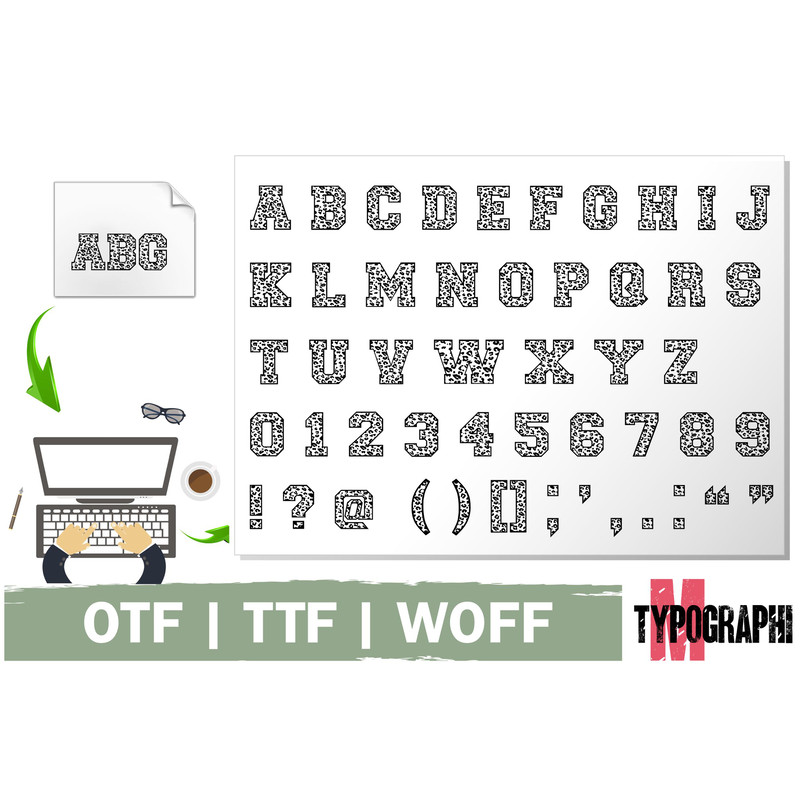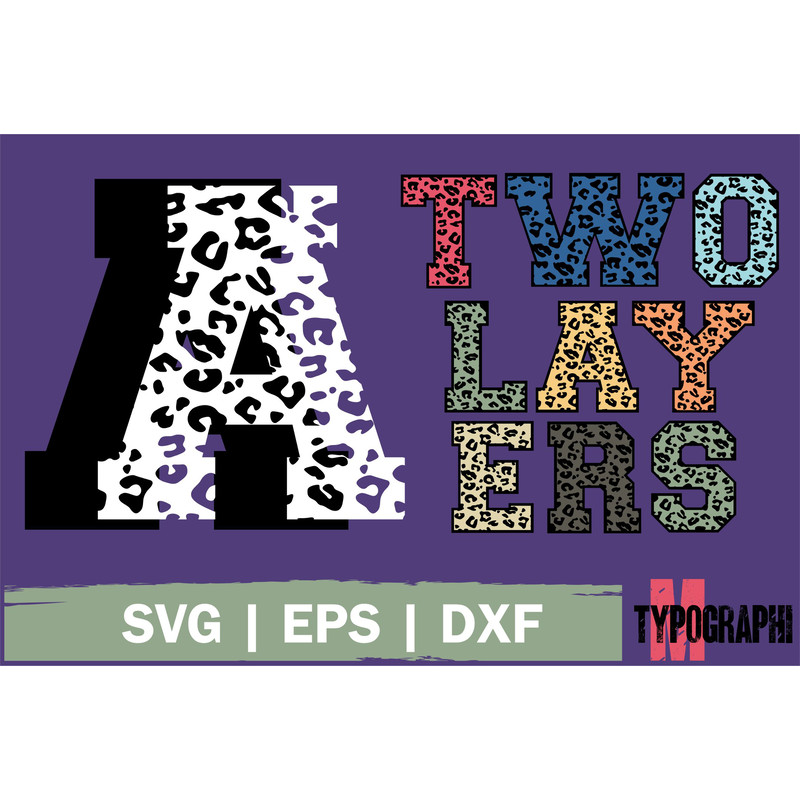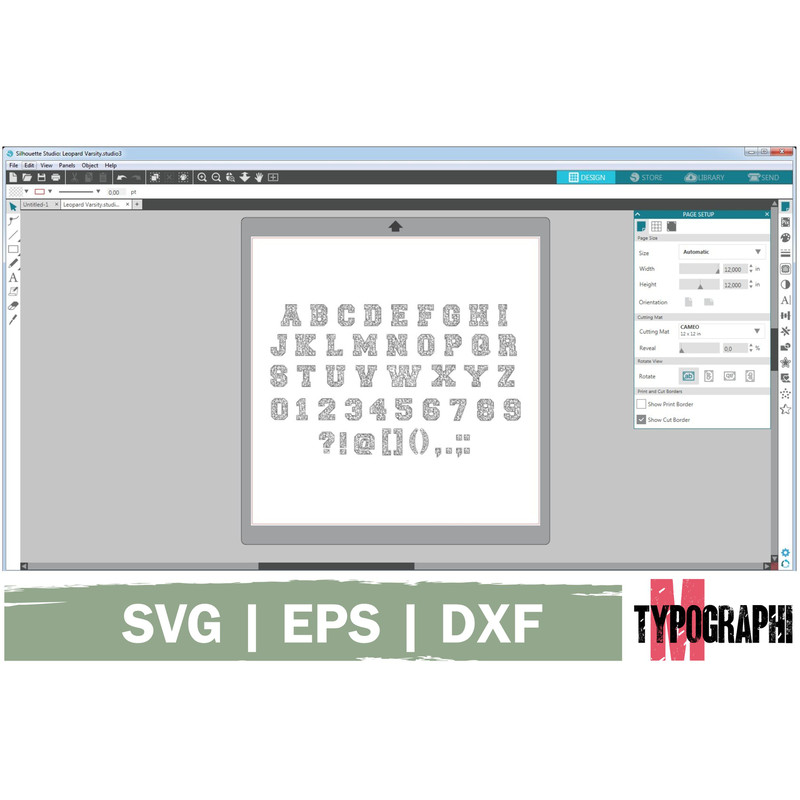
Leopard Varsity is a beautiful display font. It can be used in your new projects such as t-shirt designs, posters, book covers and much more. Use this font to add a special touch to all your crafting projects.